Category Sans Serif
Layered font set 3D Bulb lamp
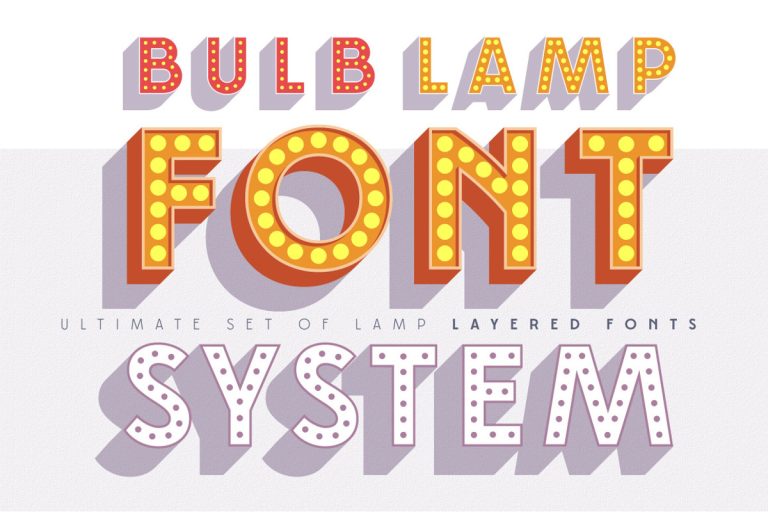
Bulblamp delivers a flexible, professional layered font toolkit that lets designers build authentic 3D bulb and lamp-style titling with speed and precision. This 12-component font system emulates the layered construction used by skilled sign painters and sign makers, providing a…
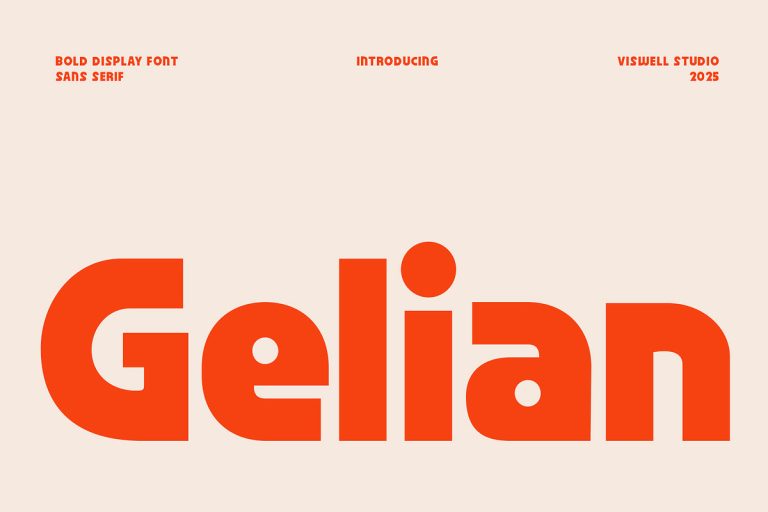
Gelian – Display Font
Gelian delivers an immediate visual punch that transforms ordinary layouts into confident statements. Built as a bold sans-serif display face, Gelian combines retro-futuristic character with clean geometric construction to achieve a versatile, modern presence. Designers choose Gelian when they need…
Dexa Pro
Dexa Pro, designed by Ceyhun Birinci in 2020, delivers a powerful and adaptable typographic system built to solve real-world design problems. Created with the clarity of classic sans-serifs in mind, Dexa Pro expands that legacy into a modern super family…
iWasLike Pro 6 FONTS ESSENTIALS
CAL iWasLike™ Pro is a purpose-built, conversational sans-serif family that brings warmth and clarity to paragraphs, captions, and user interfaces. This Essential Package contains the most popular weights — Regular, Semibold, and Bold — plus matching obliques so you can…
Mid Century Modern Font Bundle
Step back into the golden age of graphic design with the Mid-Century Modern Font Bundle. This curated collection delivers 37 handpicked typefaces that channel the sleek, stylish, and playful spirit of the 1950s and 1960s. Each font actively captures elements…
Blont | Modern & Clean Logo Font
Blont delivers confident, modern typography crafted to elevate brand identities, editorial headlines, and poster campaigns. Designed with striking forms and optional alternates, Blont empowers creatives to build memorable logotypes and bold display treatments quickly. Whether you need a headline that…
Urban Shadow a Modern Sport Font
Urban Shadow is a dynamic, modern sport font combination crafted by Blankids Studio for designers who demand energy, clarity, and collegiate personality. This family blends a strong sans serif with a confident script to create a complete typographic toolkit for…
Cape
Cape is a distinctive sans serif display font that captures coastal charm and vintage hand-painted character while remaining clean and modern. Designed as an all-caps Latin-based typeface, Cape emphasizes bold, readable forms and handcrafted personality. The font brings nostalgic signage…
FBS Poffen
FBS Poffen delivers a practical, modern sans-serif system that empowers designers to refine visual language quickly and confidently. Built with four distinct styles and flexible corner treatments—rounded and pointed—plus a slanted variant, FBS Poffen adapts to diverse creative needs. The…
ED Aughris – Display Sans font
Step into the future of typography with Aughris — a powerful, modern sans serif display font that blends bold strength with minimalist precision. Designed for high visual impact, Aughris commands attention without sacrificing elegance. Whether you’re crafting a striking headline,…